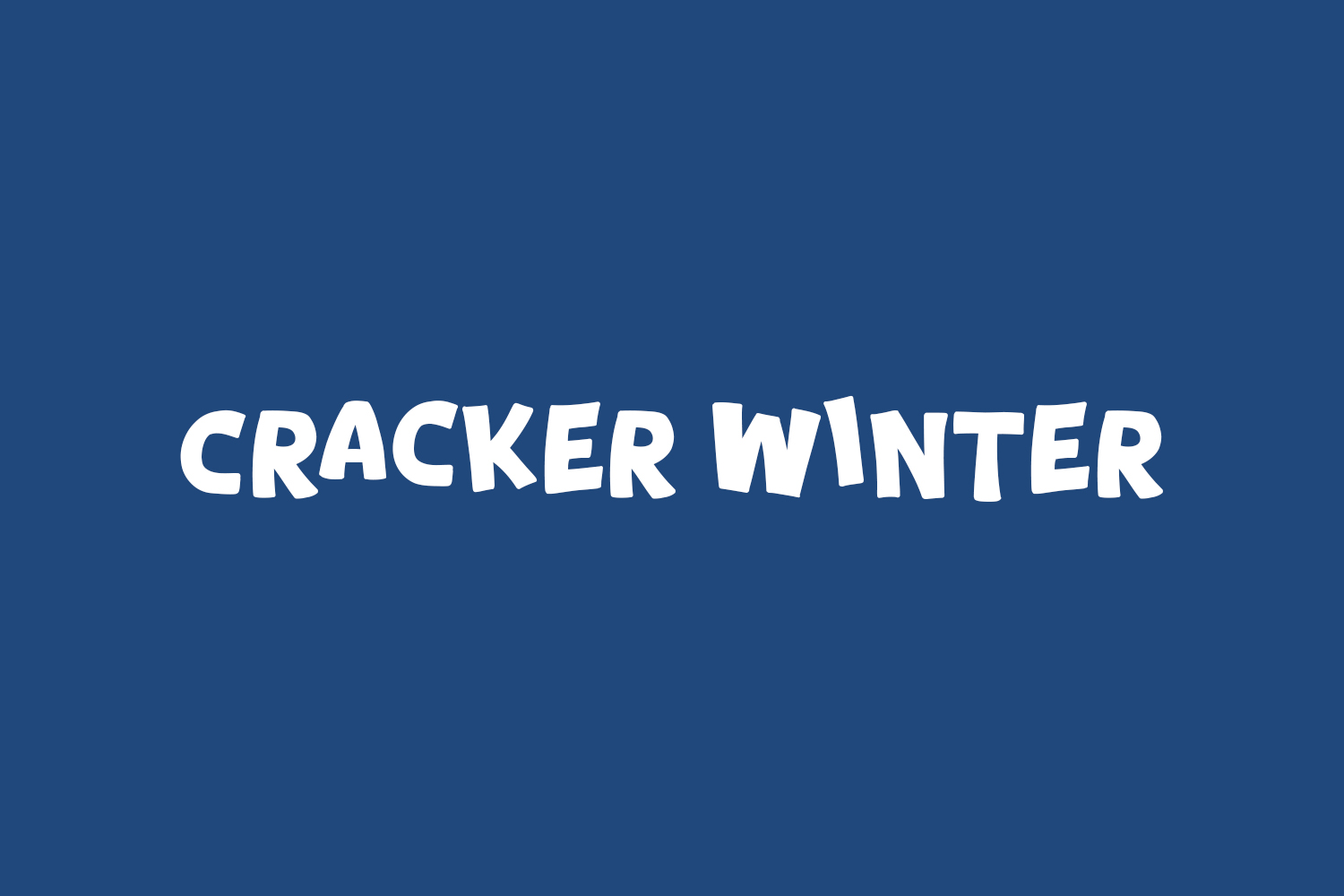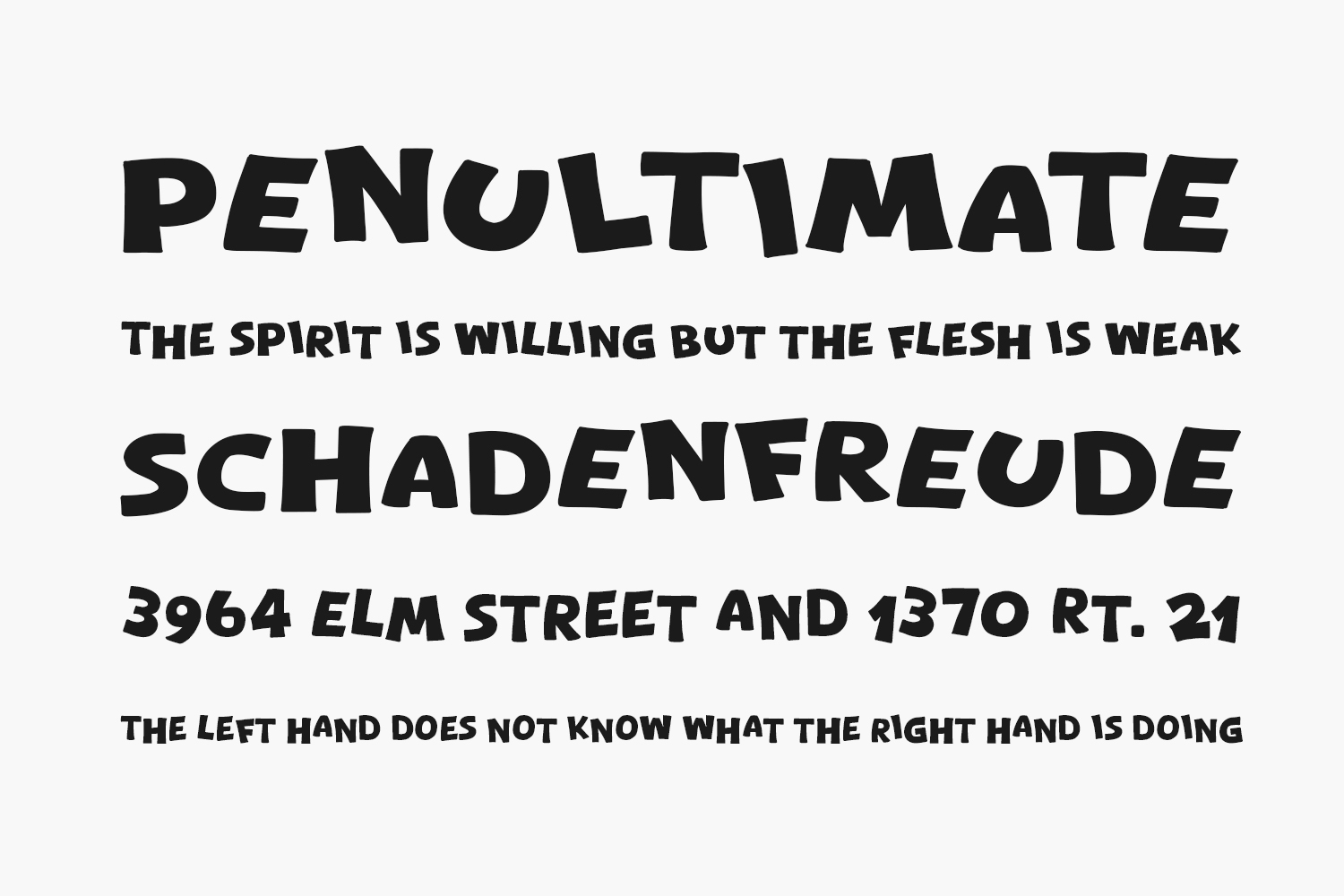
Discover the contemporary charm of Cracker Winter Free Font, a delightful display font ideal for posters, logos, magazines, book covers, banners, and beyond! Elevate your designs with this fantastic font, perfect for crafting captivating visuals. Its versatility makes it a seamless fit for a vast array of projects, so infuse your creative ideas with Cracker Winter and witness the standout impact it brings. Free Font was designed by Khurasan and is free for personal or commercial use.